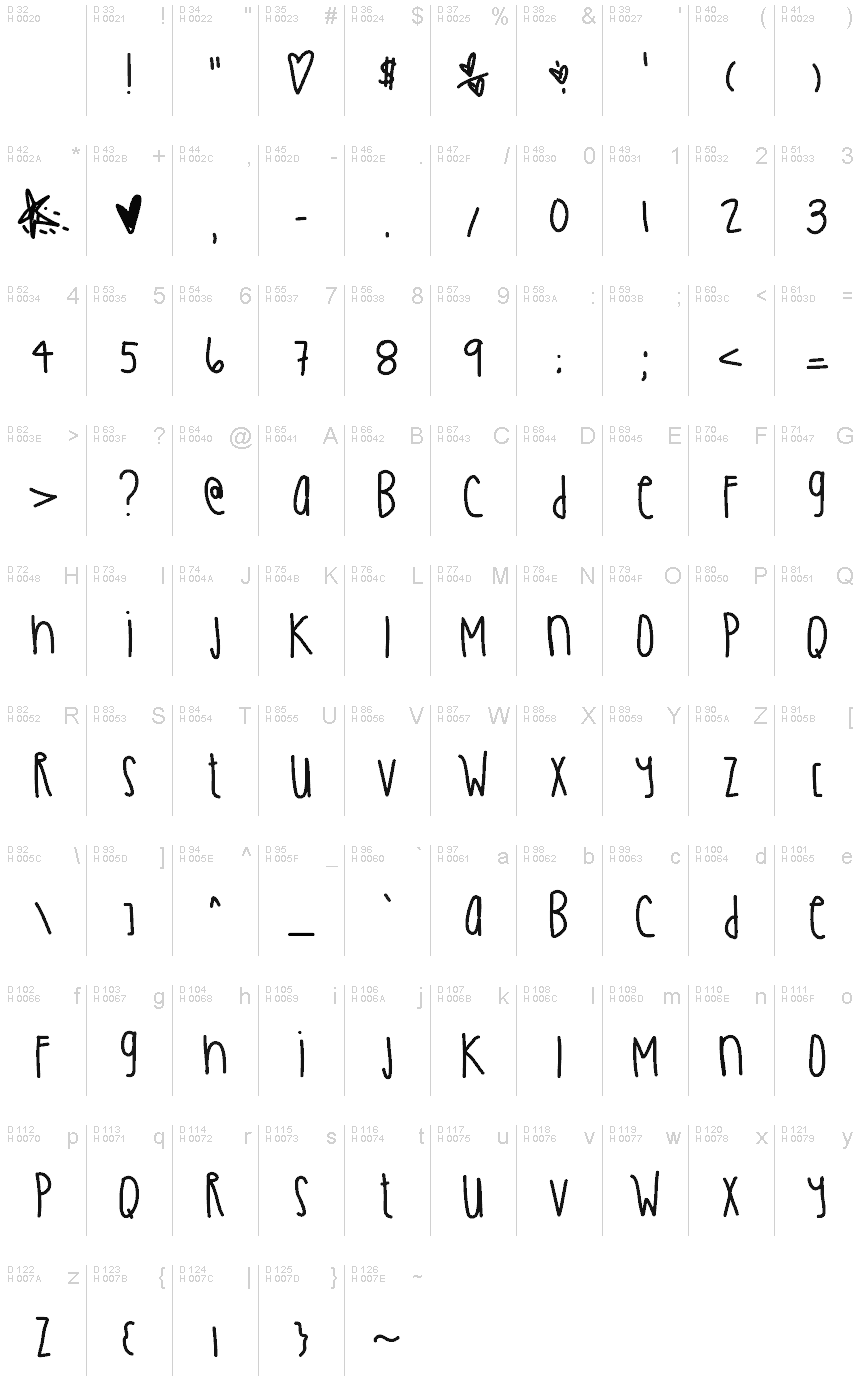
OliverTwist
Oliver Twist is a captivating handwritten font designed by Des Gomez. Its light, condensed strokes evoke a sense of whimsical elegance, reminiscent of the classic novel that inspired its name. The font's dynamic flow and organic imperfections lend a distinct character, making it well-suited for a variety of applications, from editorial design to branding and packaging. Its versatility allows it to seamlessly transition between formal and casual settings, adding a touch of personality to any project.
This font's charm lies in its ability to convey a sense of warmth and authenticity. Its condensed width makes it an excellent choice for headlines, titling, and short blocks of text, where it can create a visually striking impact. Equally, Oliver Twist's refined, yet casual aesthetic lends itself well to invitations, greeting cards, and various forms of personal correspondence, where it can infuse a touch of timeless charm.